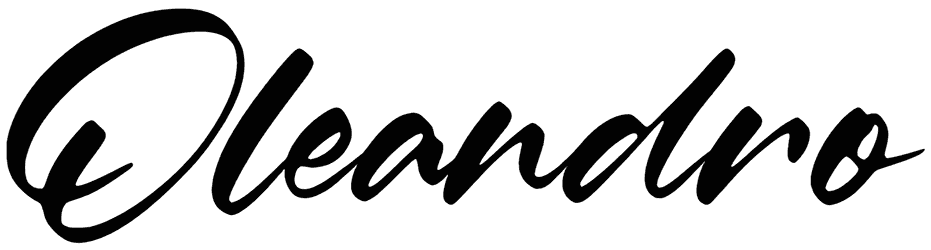
Oleandro Font
It’s safe to say that nothing could accent your design better than this script font called Oleandro, slicing it in a natural manner. This handwritten font with a railroad of A to Z characters would push you to stay ahead of craving.
Only the solidarity and intimacy of the letters made it challenging to read. Set it on posters, covers, and invitations to see how it booms. So, if you’re chomping at the bit to hold it, you’re in good company!